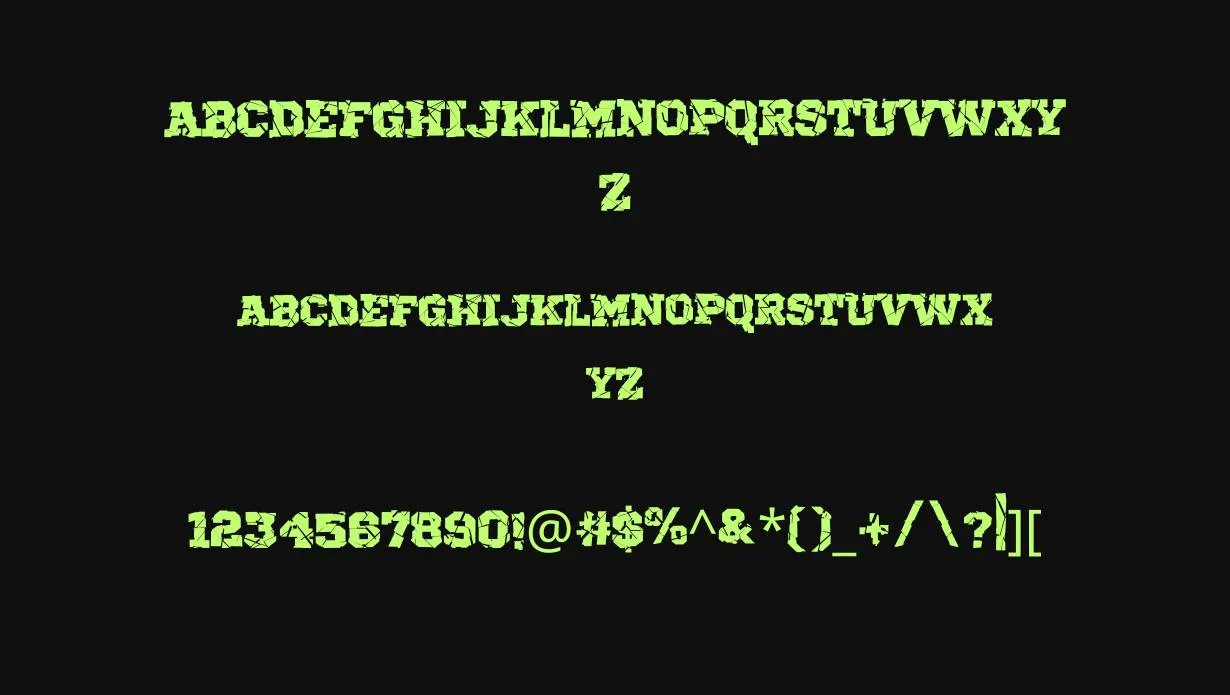
Broken Font is a distinctive and edgy typeface that embraces imperfections with its fragmented letterforms. This font adds a touch of unconventional style to your designs, making it suitable for artistic projects, album covers, or posters that seek to break away from traditional design norms.
Broken Font injects a raw and dynamic element, creating a visual impact that stands out and challenges the ordinary, making it perfect for projects that demand a unique and rebellious aesthetic.